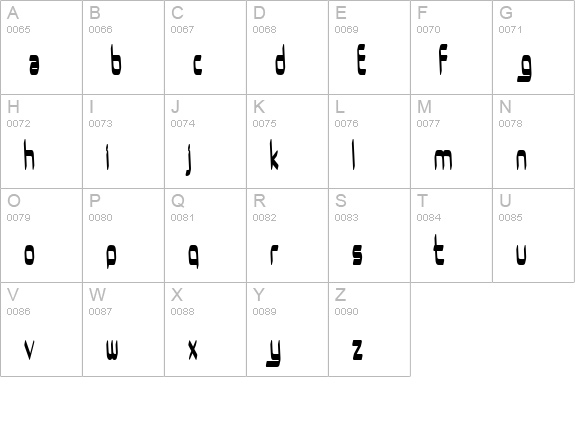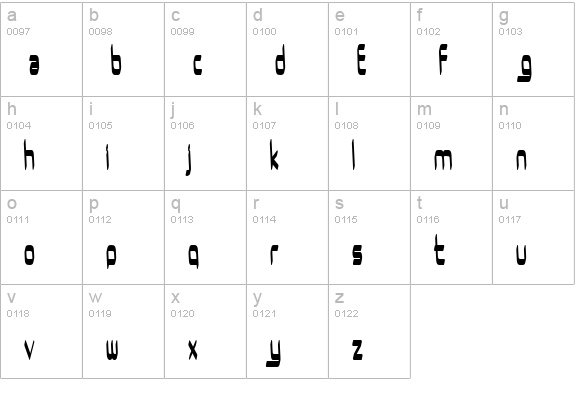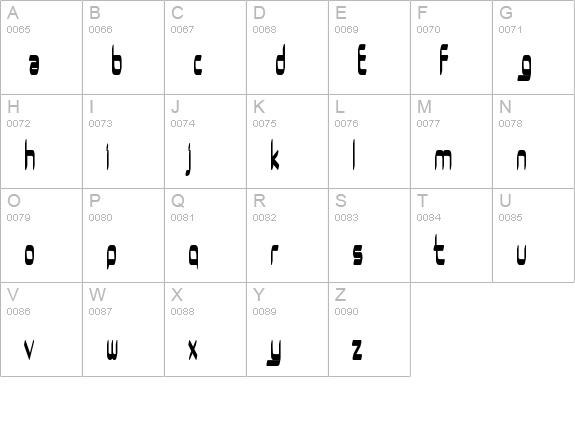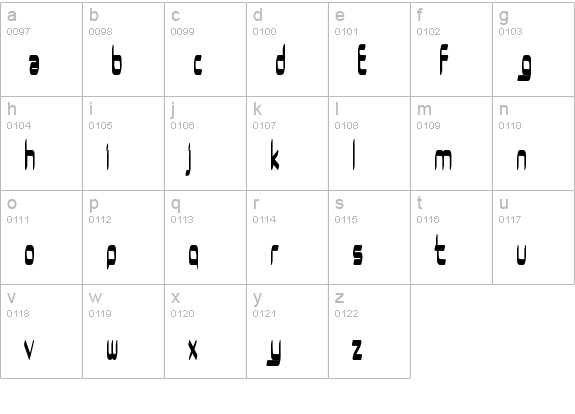
UrUrMa Font Details
Introducing UrUrMa, a beautifully crafted font that brings elegance and sophistication to your designs. With its sleek and modern style, UrUrMa is perfect for a wide range of projects, from branding and logos to invitations and packaging. What sets UrUrMa apart is that it is not only stunningly designed, but it is also free. Yes, you read that right – this exceptional font is freely available for download at FontsMarket.com. Now you can add a touch of class to your creations without having to spend a dime. UrUrMa boasts a unique combination of clean lines and delicate curves, creating a harmonious balance that is pleasing to the eye. Its versatility allows it to be used in both bold headlines and subtle body text, making it suitable for various design needs. This font's attention to detail is evident in its carefully crafted letterforms, each one meticulously designed to ensure visual harmony and legibility. Whether you're designing a logo for a high-end fashion brand or creating an elegant wedding invitation, UrUrMa will bring your vision to life with its refined aesthetic. Downloading UrUrMa is a breeze – simply head over to FontsMarket.com and find the font among the vast collection of typefaces. Once downloaded, you can start using it immediately in your design projects, whether for personal or commercial use. In conclusion, UrUrMa is a remarkable font that combines style, versatility, and affordability. With its free availability at FontsMarket.com, there's no reason not to elevate your designs with this exquisite typeface. So go ahead, unleash your creativity, and let UrUrMa be the perfect companion for your next design endeavor.